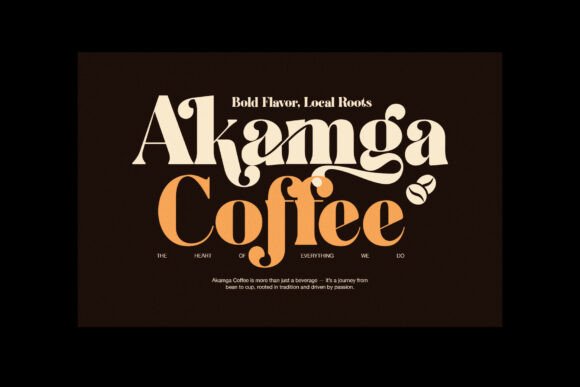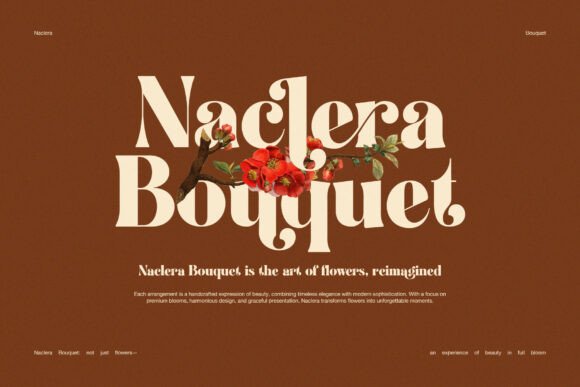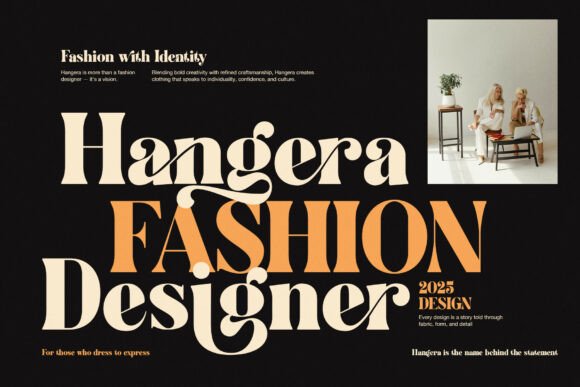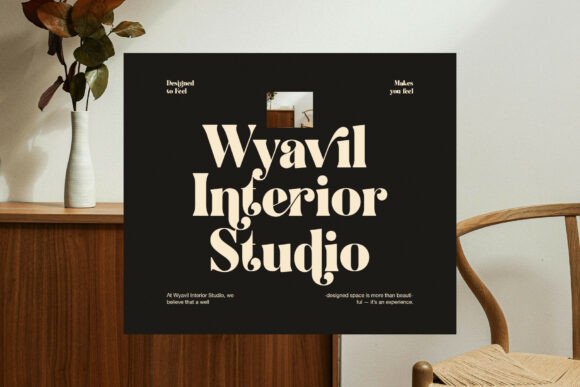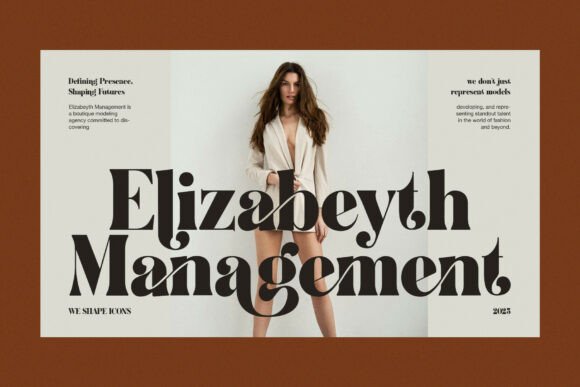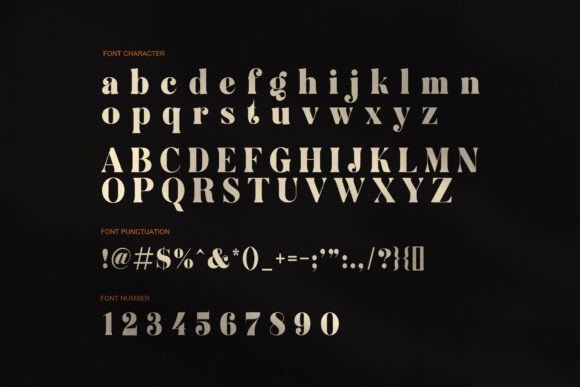
Introduction to Migillay Font
As a designer, there’s nothing quite like the rush of inspiration that comes with discovering a new font that perfectly captures the essence of your creative vision. For me, it was the Migillay Font that stole the show. Its elegant serif design and expressive curves transported me to a world of timeless storytelling and high-quality visual artistry.
As a valuable addition to any designer’s toolkit, the Migillay Font offers a transparent background that’s perfect for layering and manipulation, making it a versatile choice for a wide range of applications. So why settle for anything less when you can elevate your design game with this exceptional font?
Key Features of Migillay Font
- High-quality, modern design perfect for creative projects
- Transparent background and clean design make it ideal for use on any background
- Perfect for use in branding, logos, and other design elements, adding a unique touch to any creative project
Honest Review: Migillay Font
I recently came across the Migillay Font and I must say, it’s a great addition to any designer’s toolkit. This high-quality font is perfect for creative projects where you need a clean and modern look. The transparent background makes it easy to use and blend with any design resource.
However, there are a few limitations to consider. The font may not be suitable for very formal or traditional designs, as it has a modern and minimalist feel. Additionally, the font may not be as comprehensive as some other font families, so you may need to supplement it with other fonts for more complex designs.
Overall, I’m impressed with the Migillay Font and would recommend it to designers looking for a high-quality, easy-to-use font for their creative projects.
The Migillay Font is a high-quality design resource perfect for creative projects. Its transparent background makes it easy to use in various design software.
The Migillay Font is perfect for a variety of design projects, including logos, business cards, and brochures. Its high-quality design and transparent background make it easy to use in a range of creative projects.
To get the most out of the Migillay Font, experiment with different font sizes and styles to find the perfect look for your design project. You can also combine the font with other design elements to create a unique and eye-catching design.